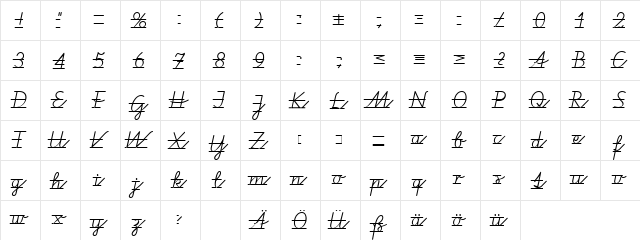
VA Pe 2 Normal
Design Context for VA Pe 2 Typeface
VA Pe 2 is a composed and adaptable typeface that performs quietly and consistently across a wide range of design contexts.